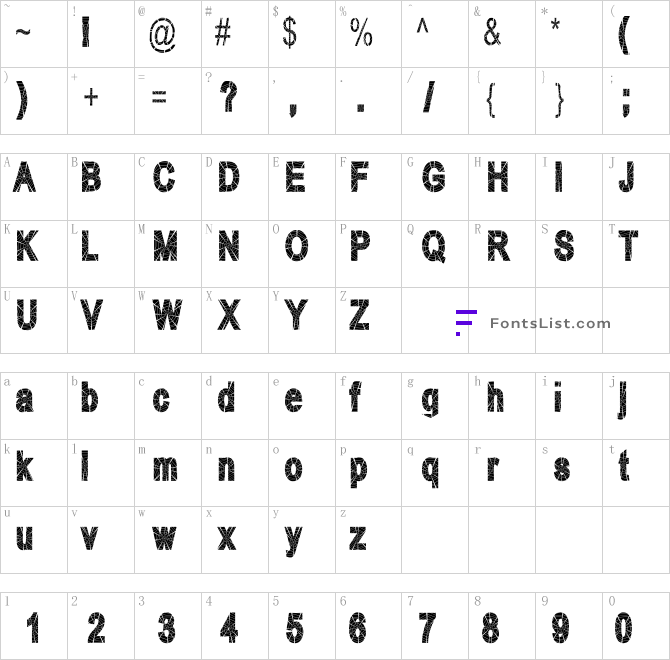
- Font Name:Antenna Bloat Shatter
Antenna-Bloat-Shatter.ttf is a very beautiful artistic font, Antenna-Bloat-Shatter.ttf is widely used in the design and printing of various books and pictures,Antenna-Bloat-Shatter.ttf has a strong visual impact,Antenna-Bloat-Shatter.ttf is a commonly used font in newspapers, magazines and books, and is used in posters, e-commerce Poster design, store design, logo design, font design and other fields.Antenna-Bloat-Shatter.